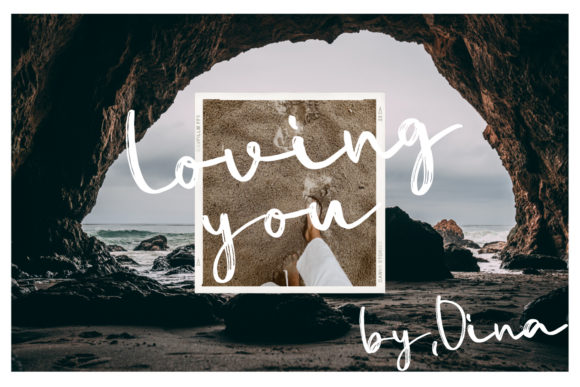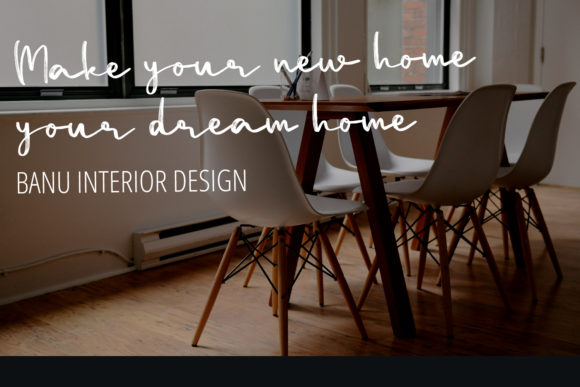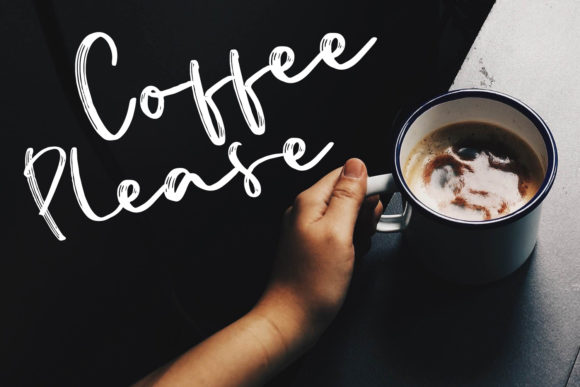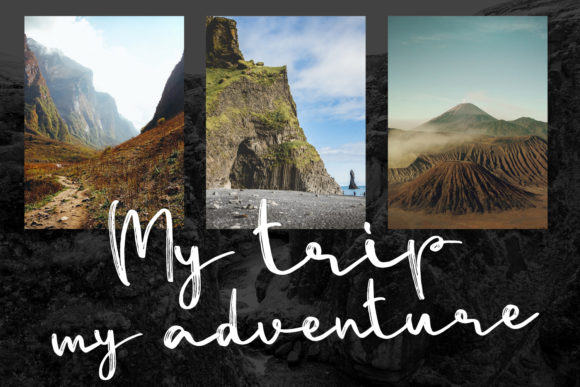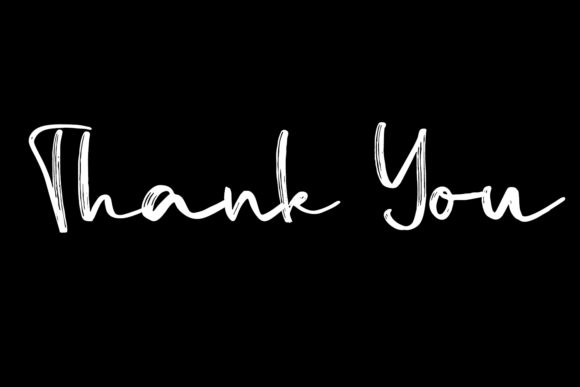
Bluemoon Font: A Sweet and Versatile Brushed Handwritten Font
Are you a designer or crafter looking for a unique and captivating font to elevate your creative projects? Look no further than Bluemoon Font, a sweet and brushed handwritten font that is sure to capture your heart. With its distinct and well-rounded letters, Bluemoon Font is a masterpiece that can add a touch of magic to any design.
What Makes Bluemoon Font So Special?
Bluemoon Font is a one-of-a-kind font that boasts an incredibly versatile style, making it perfect for a wide range of design applications. Its brushed handwritten texture gives it a personal and organic feel, reminiscent of handwritten notes and letters. The font’s distinct letters are carefully crafted to create a beautiful and harmonious flow, making it a joy to read and behold.
Key Features of Bluemoon Font
- Sweet and Brushed Handwritten Texture: Bluemoon Font features a beautiful, brushed handwritten texture that adds a personal touch to any design.
- Distinct and Well-Rounded Letters: The font’s letters are carefully crafted to create a beautiful and harmonious flow, making it a pleasure to read and use.
- Incredibly Versatile Style: Bluemoon Font is suitable for a wide range of design applications, from creative projects to commercial use.
- Elegant and Modern Aesthetic: The font’s elegant and modern aesthetic makes it perfect for designs that require a touch of sophistication.
How to Use Bluemoon Font in Your Designs
Bluemoon Font is an incredibly versatile font that can be used in a variety of design applications, including:
- Digital and Print Materials: Use Bluemoon Font to create stunning digital and print materials, such as brochures, flyers, posters, and business cards.
- Social Media Graphics: Add a touch of personality to your social media graphics, such as Instagram posts and Facebook covers, with Bluemoon Font.
- Branding and Packaging: Use Bluemoon Font to create beautiful branding and packaging designs that stand out from the crowd.
- Crafting and DIY Projects: Bluemoon Font is perfect for crafters and DIY enthusiasts who want to add a personal touch to their projects, such as handmade cards and gift tags.
Tips for Getting the Most Out of Bluemoon Font
To get the most out of Bluemoon Font, here are a few tips to keep in mind:
- Experiment with Different Colors: Try pairing Bluemoon Font with different colors to create unique and eye-catching designs.
- Play with Font Sizes: Experiment with different font sizes to create visual interest and hierarchy in your designs.
- Add Texture and Patterns: Add texture and patterns to your designs to create a more dynamic and interesting look.
Bluemoon Font is a sweet and versatile brushed handwritten font that is sure to capture your heart. With its distinct and well-rounded letters, incredibly versatile style, and elegant aesthetic, Bluemoon Font is perfect for designers and crafters who want to create stunning designs. Whether you’re working on a creative project or a commercial design, Bluemoon Font is a great choice for adding a touch of magic to your work.